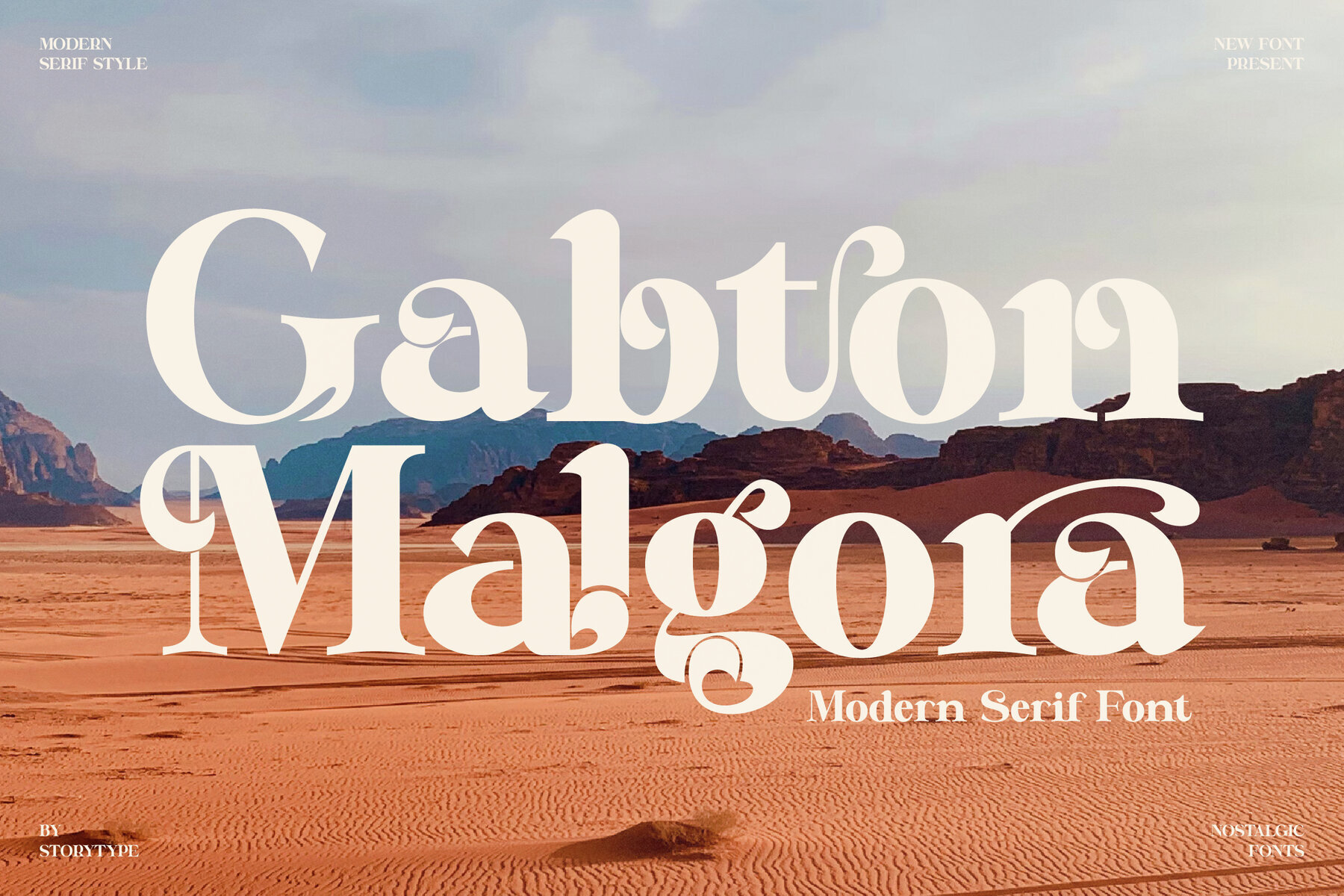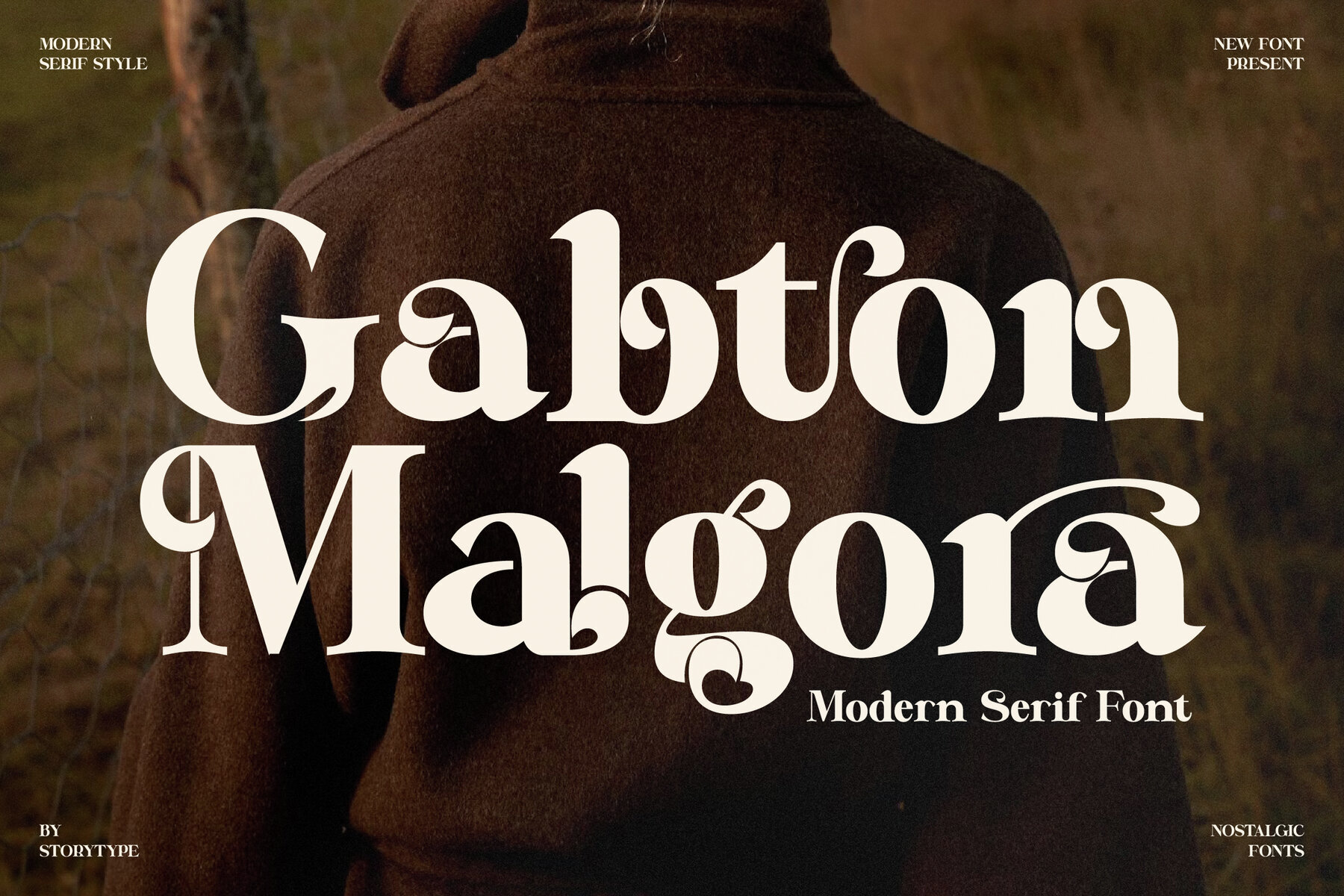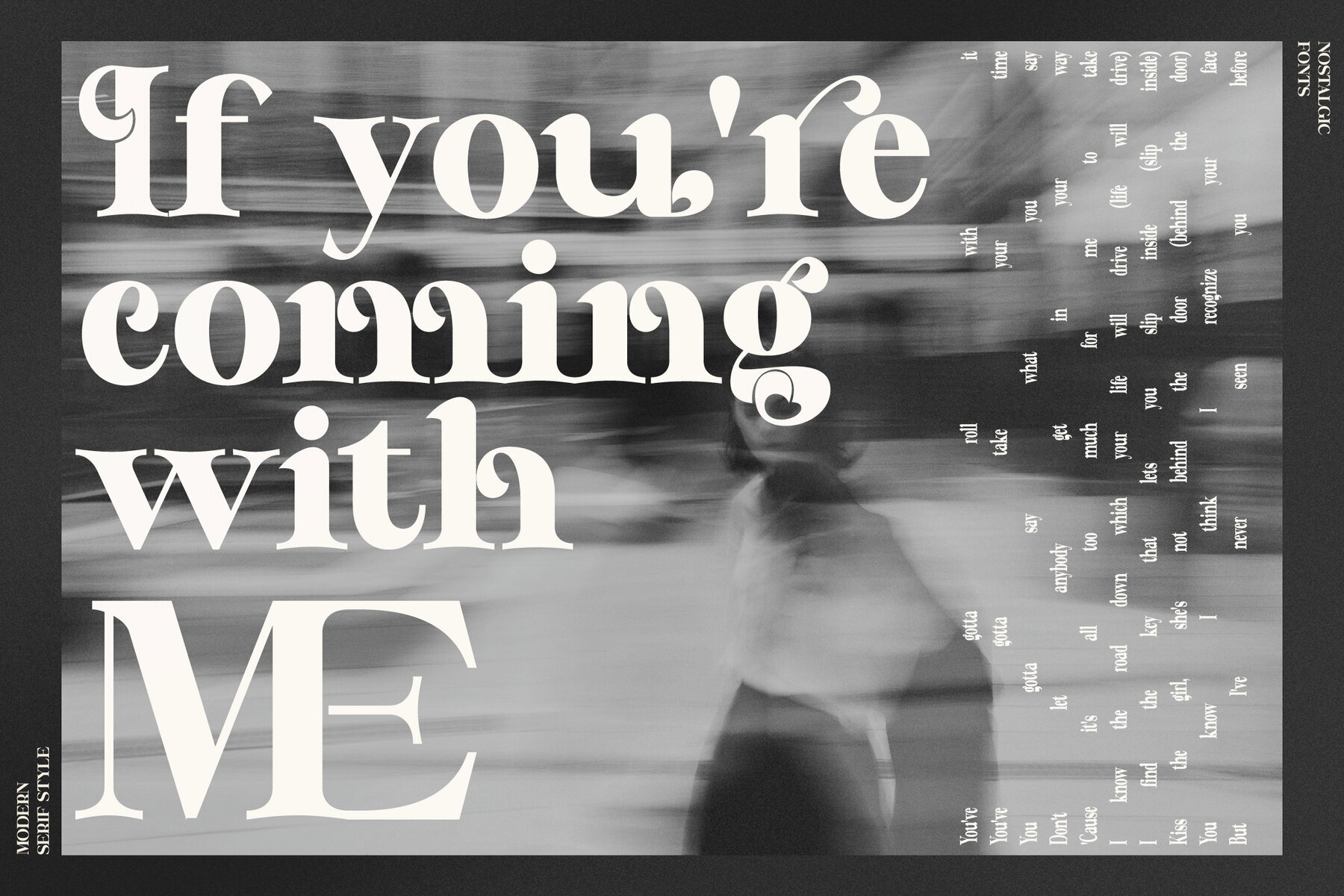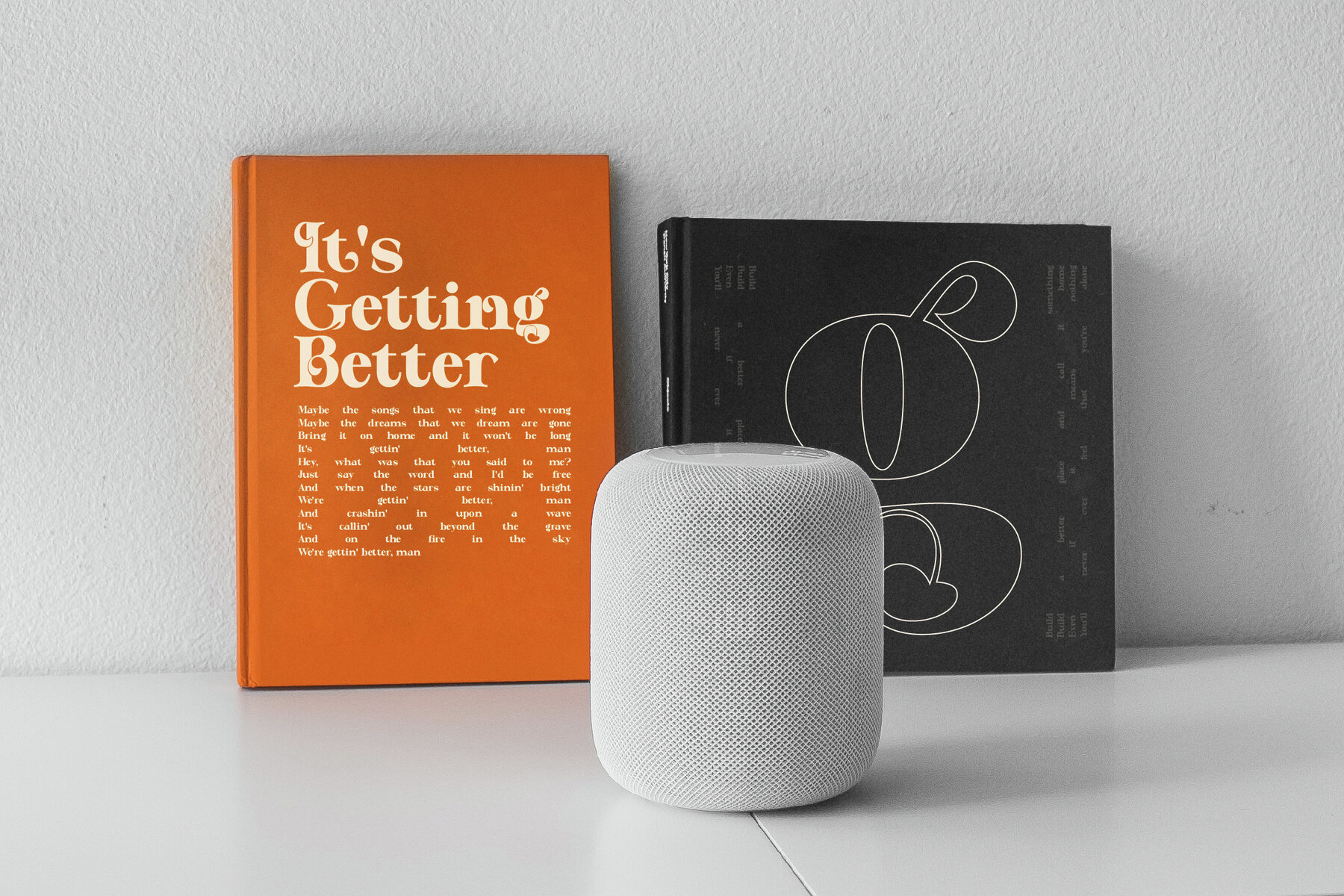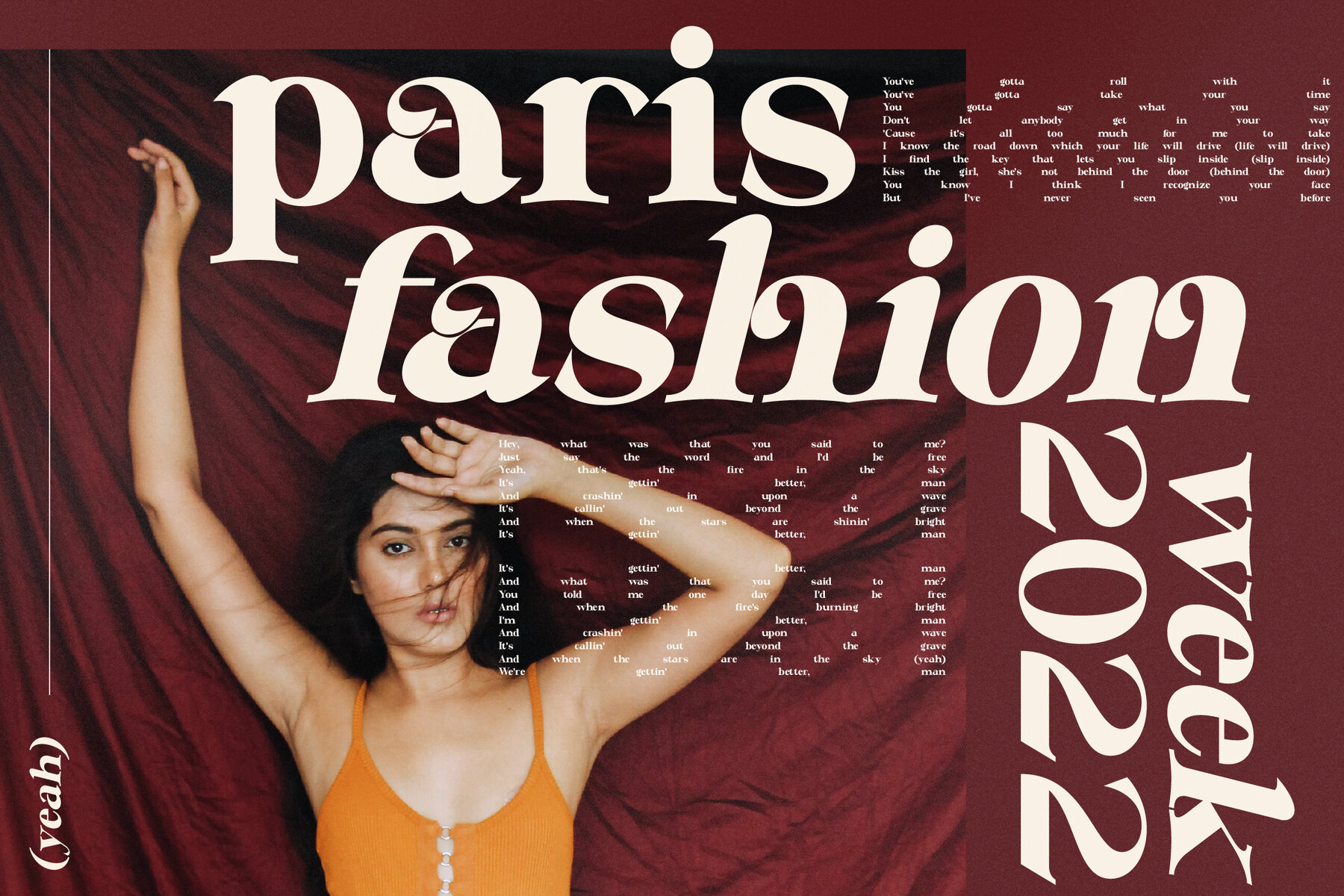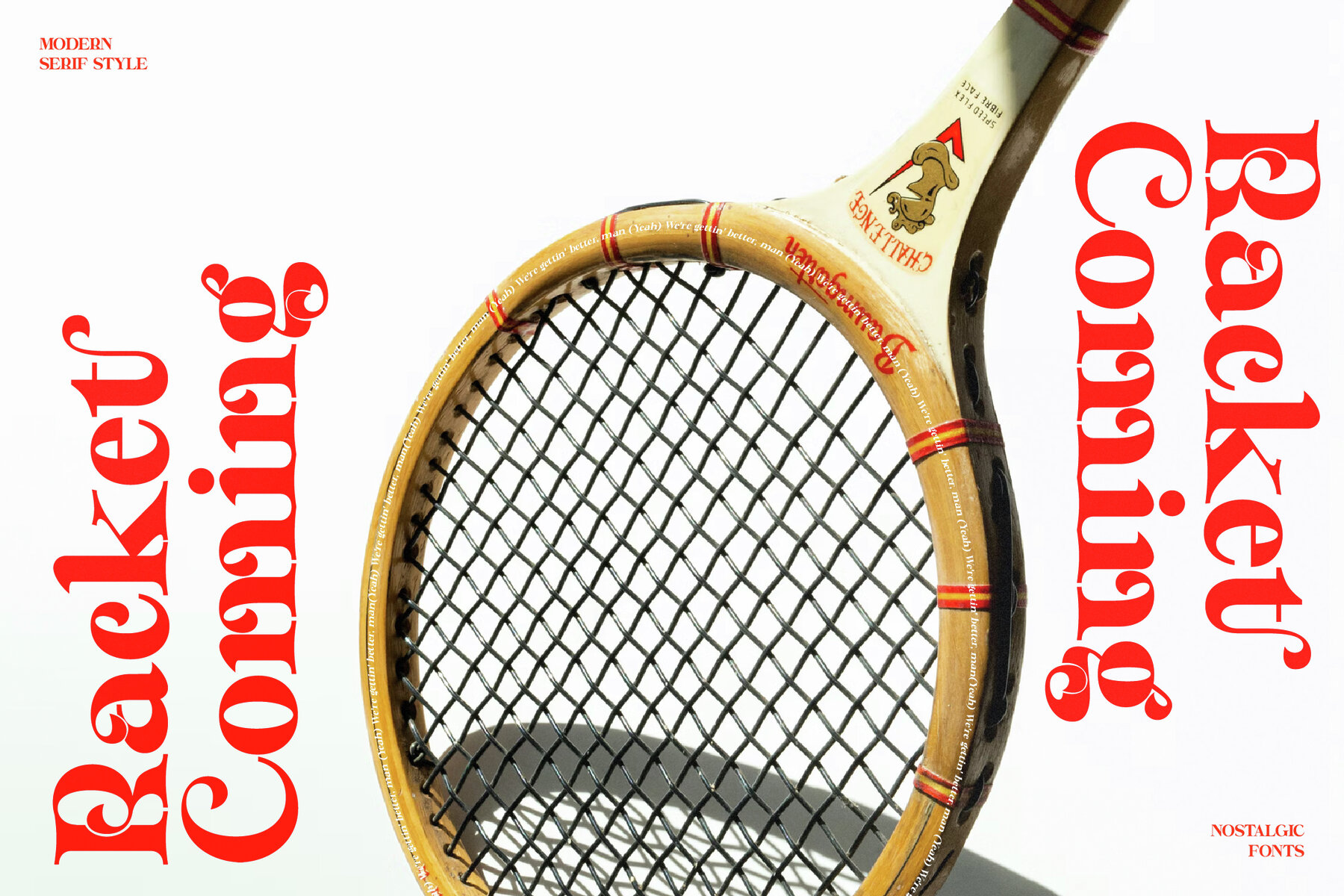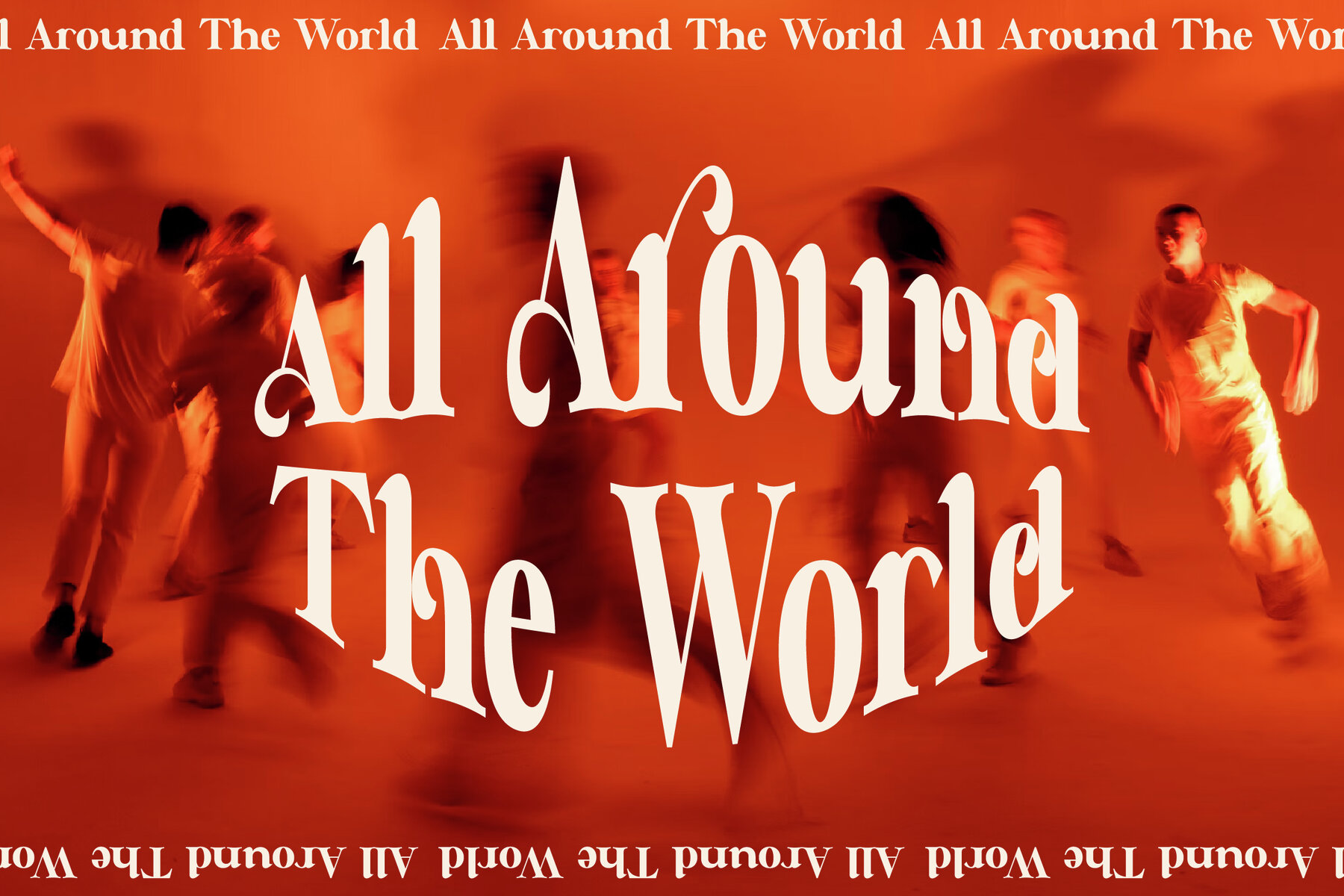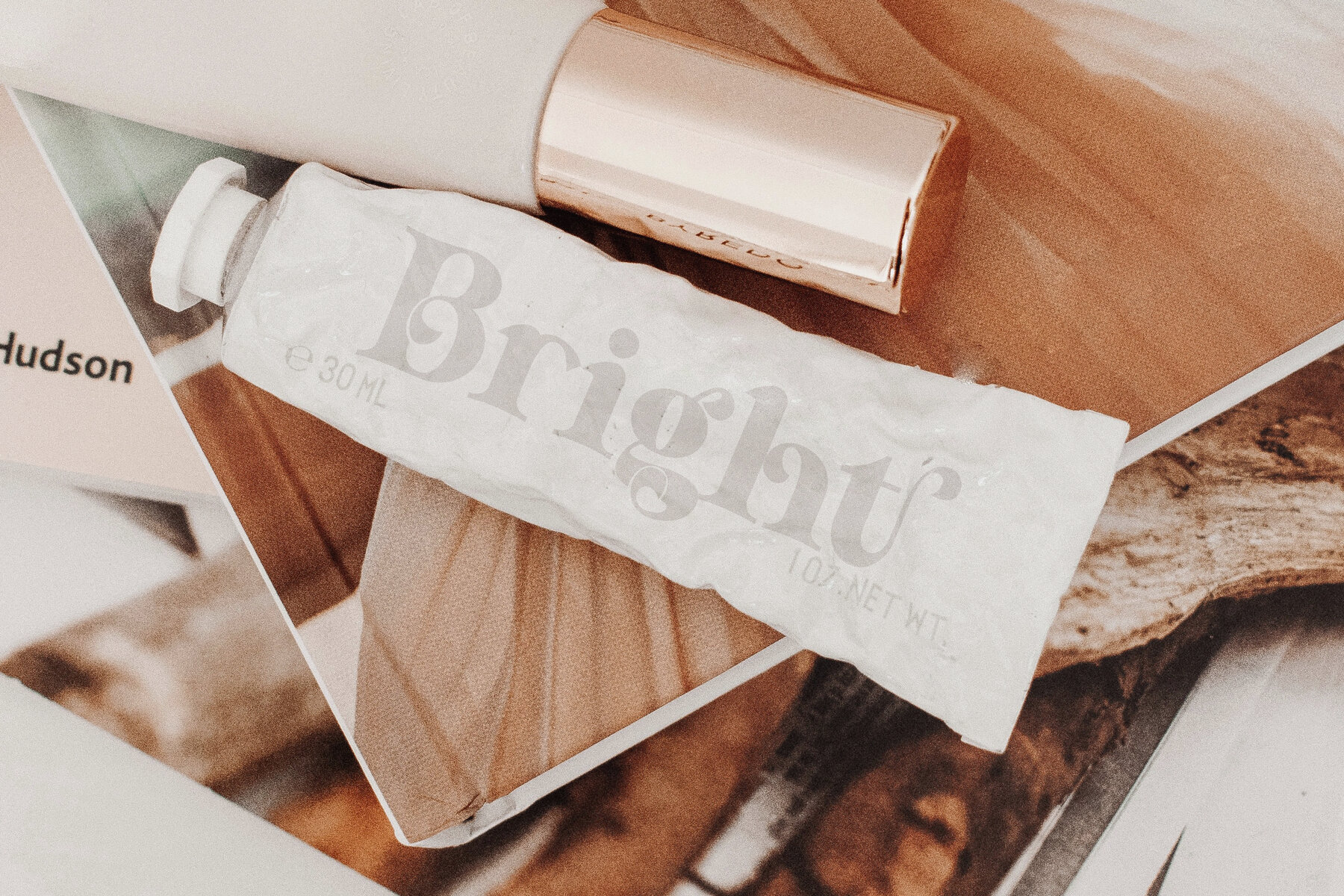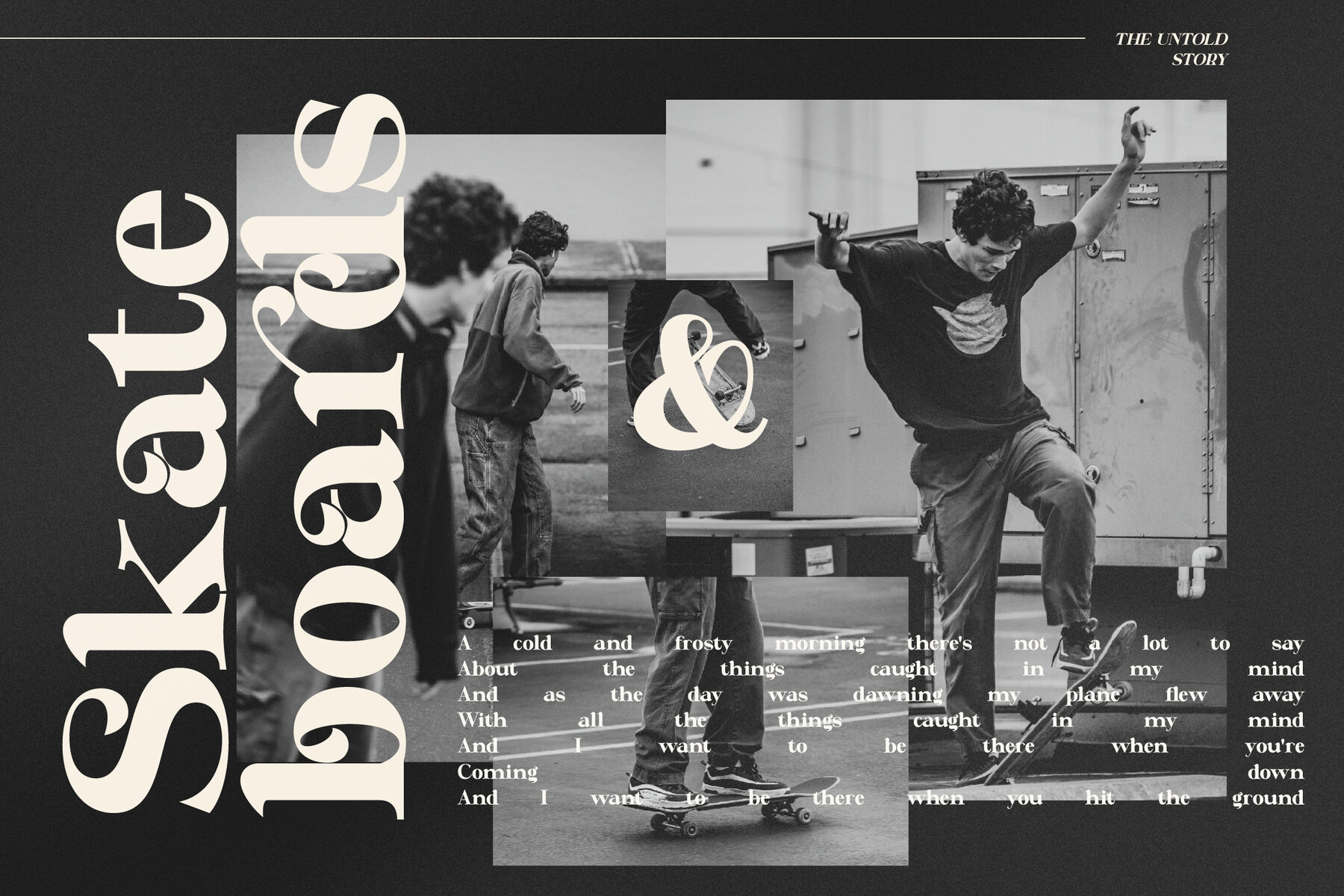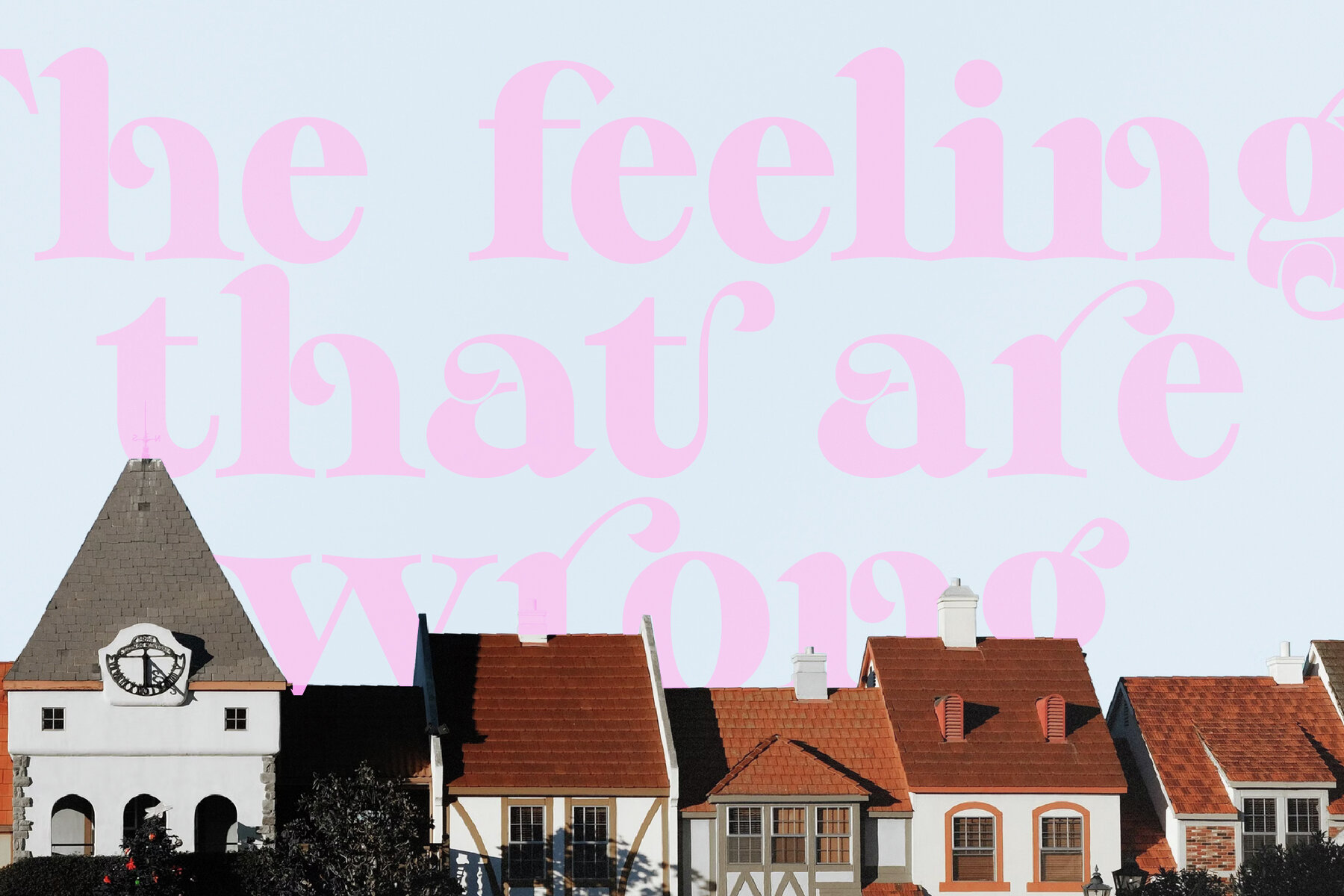
Gabton Malgora Font
Gabton Malgora is a sophisticated serif typeface that seamlessly combines modern and classic elements, offering a distinctive and refined style. Ideal for creating elegant and luxurious designs, Gabton Malgora is perfect for logos, book or movie titles, fashion brands, magazines, and more. Its unique design lends a touch of class and professionalism to any project, making it a versatile choice for various creative applications.